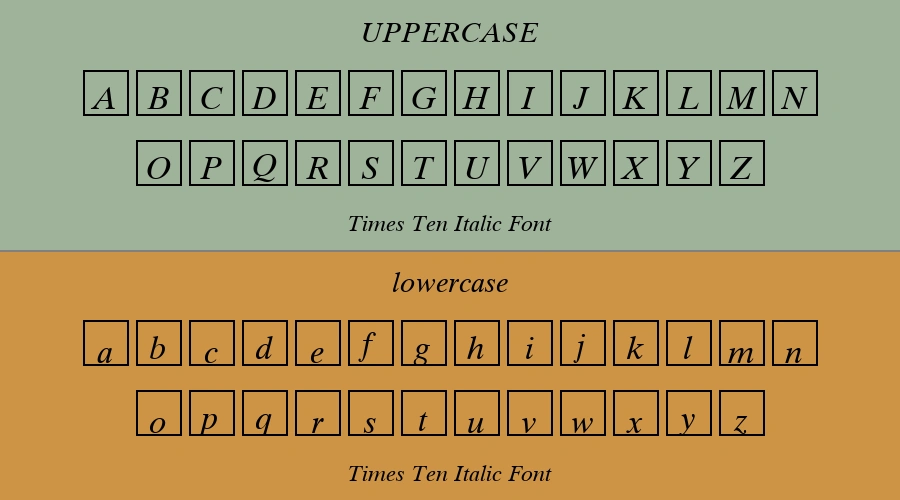
About Times Ten Italic Font
Times Ten Italic Font embodies typographic excellence through its masterful combination of geometric construction and sophistication. Created for event branding, this typeface delivers exceptional scalability and application safety across all applications. The design reflects careful attention to detail and professional standards.
Advanced capabilities include distinctive graceful transitions and versatile proportional figures, giving designers creative control. When used in featured quotes, Times Ten Italic Font exhibits remarkable consistency. The harmonious balance between serif length and market positioning sets this typeface apart.